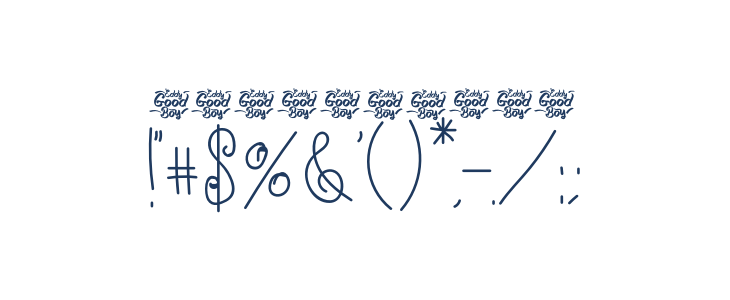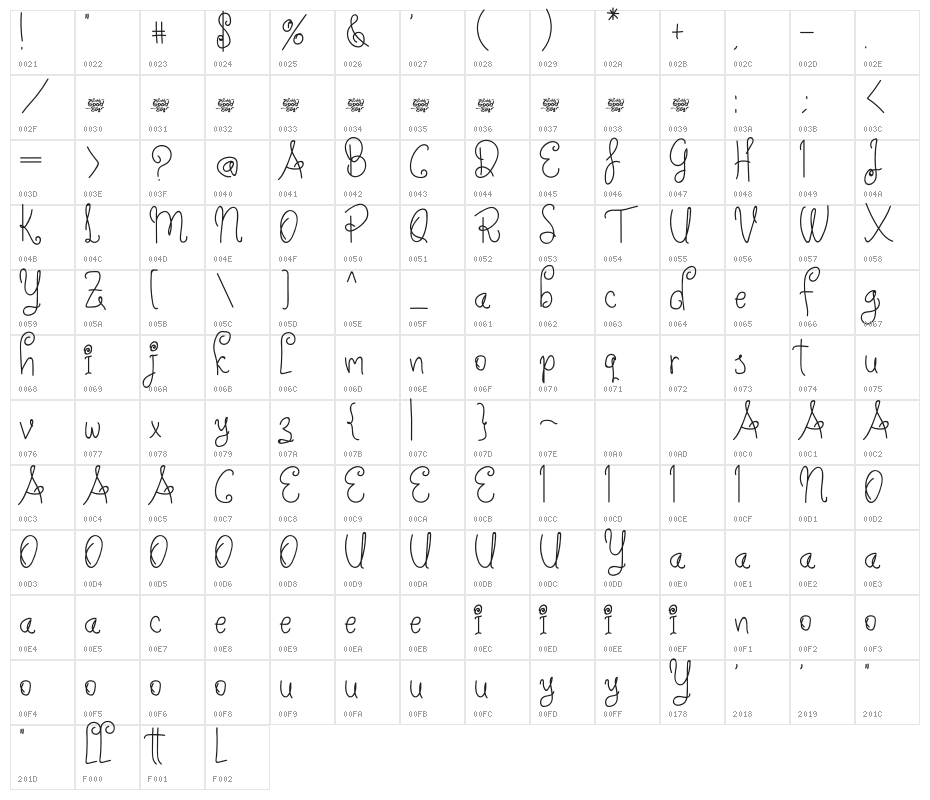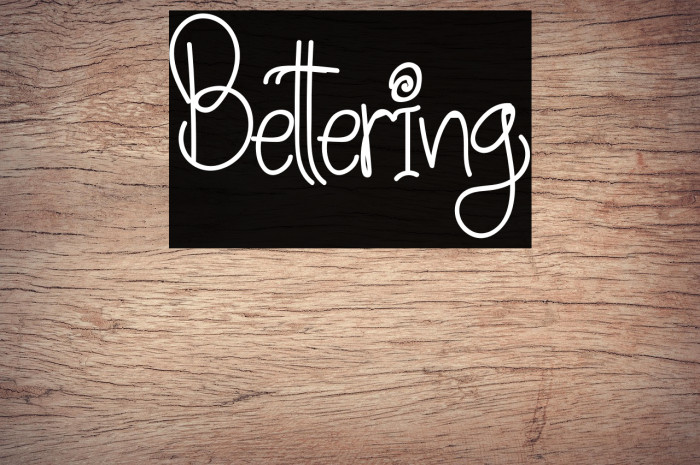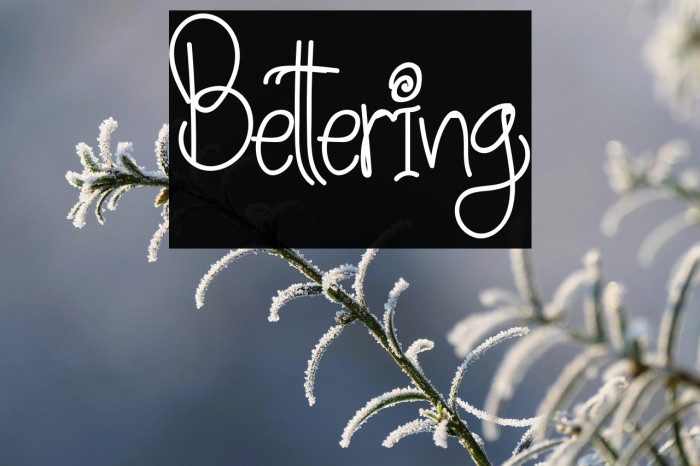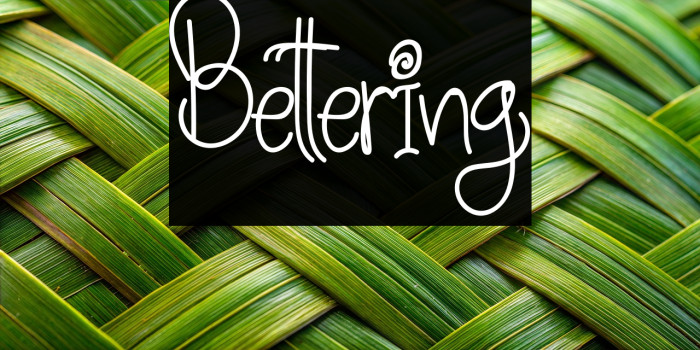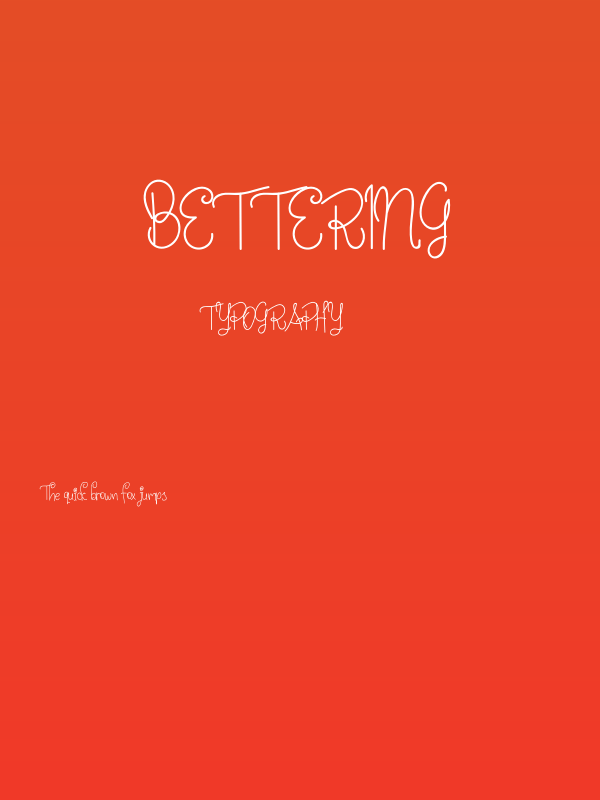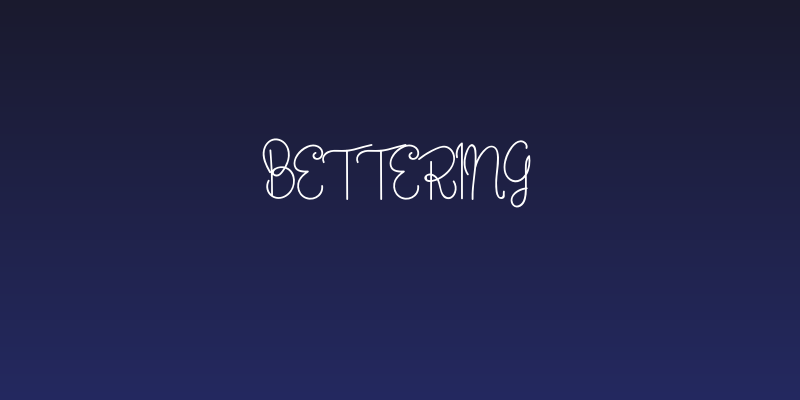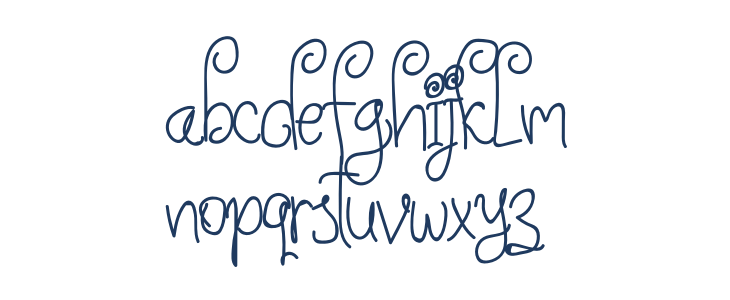
Bettering Font
Bettering Description
This font features a whimsical and playful design, characterized by its curly and flowing letterforms. The uppercase letters have an elegant, looping style that adds a sense of movement and creativity. The lowercase letters maintain this playful aesthetic, with some characters incorporating unique swirls and embellishments. The font includes a variety of special characters, maintaining the same decorative style. It is highly decorative, making it suitable for projects that require a touch of whimsy and charm. The overall appearance is lively and artistic, ideal for creative and informal applications.
| Use Case | Headlines, Logos, Creative projects |
| Proposed Projects | Ideal for greeting cards, children's book covers, playful branding, and creative invitations. |